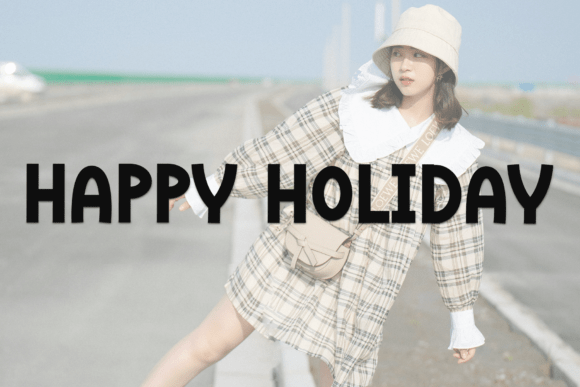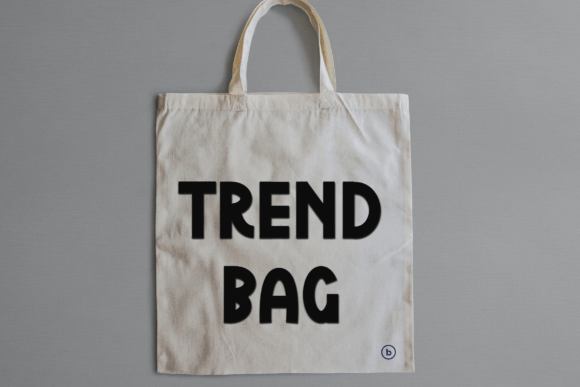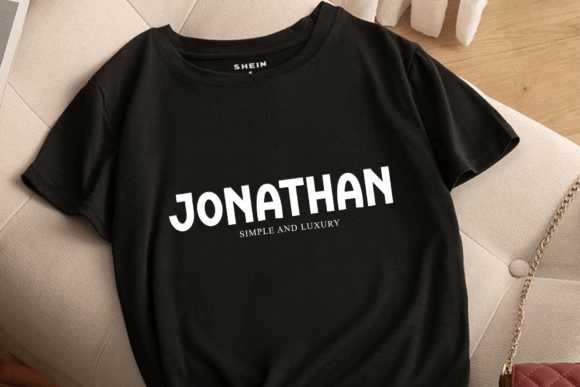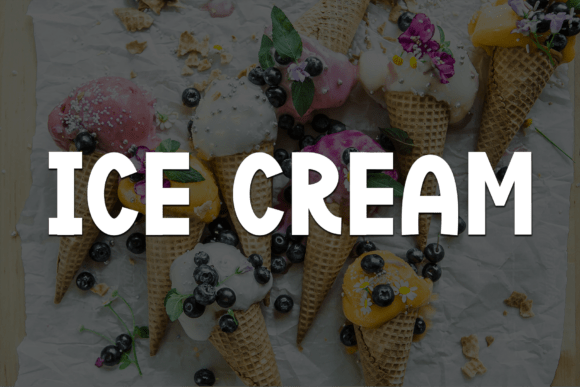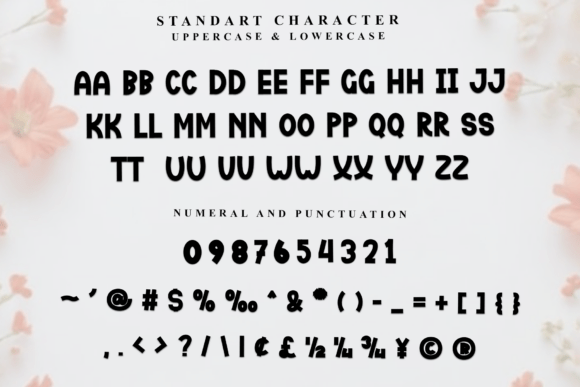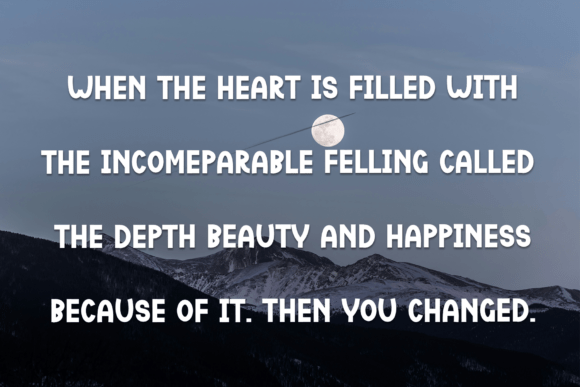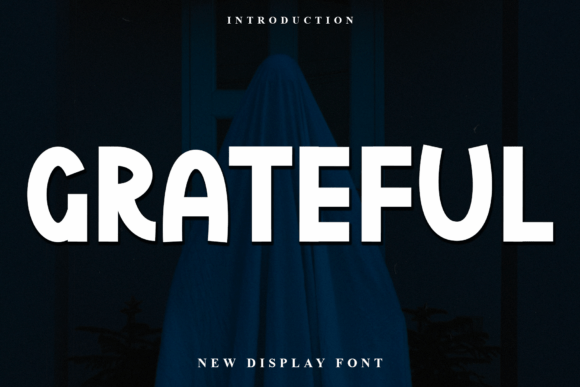
Grateful Font: Elevate Your Designs with a Unique and Eye-Catching Typeface
Are you tired of using the same old fonts in your design projects? Look no further than the Grateful Font, a beautiful and eye-catching typeface that is sure to elevate your creative works. Designed with a soft, unique touch, this font is perfect for designers, crafters, and artists looking to add a special something to their projects.
A Distinctive and Versatile Font
The Grateful Font is characterized by its distinctive strokes, which give it a special character that sets it apart from other fonts. Its unique design makes it meaningful and versatile, perfect for use in a wide range of design projects, crafts, and other creative works. Whether you’re working on a logo, brochure, or social media graphics, this font is sure to make your designs stand out.
With its various characters, the Grateful Font is perfect for use in design projects, crafts, and other creative works. Its natural font style is ideal for a wide range of products, from handmade cards and invitations to branding and advertising materials. Whether you’re a professional designer or a crafter, this font is sure to inspire your creativity and take your projects to the next level.
Enhance Your Designs and Appeal to a Wide Audience
The Grateful Font is designed to enhance your designs and appeal to a wide audience across different artistic and creative fields. Its unique and eye-catching design makes it perfect for use in a wide range of projects, from fashion and beauty branding to non-profit and educational materials. Whether you’re looking to create a bold statement or a subtle impression, this font is sure to help you achieve your design goals.
Key Features of the Grateful Font
• Unique and eye-catching design
• Soft and distinctive strokes
• Meaningful and versatile
• Various characters for added creativity
• Ideal for design projects, crafts, and other creative works
• Consider using the font for headlines and titles, where its distinctive strokes can really make an impact
In conclusion, the Grateful Font is a beautiful and eye-catching typeface that is sure to elevate your design projects and crafts. With its unique and distinctive design, versatility, and compatibility with various applications, this font is perfect for designers, crafters, and artists looking to add a special something to their creative works. So why wait? Download the Grateful Font today and start taking your designs to the next level!